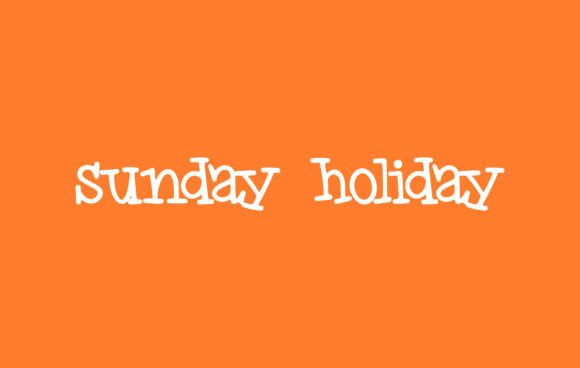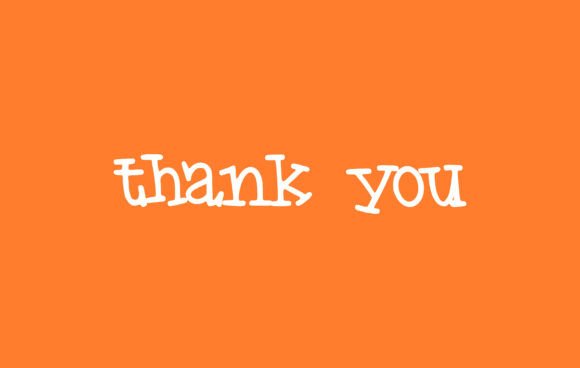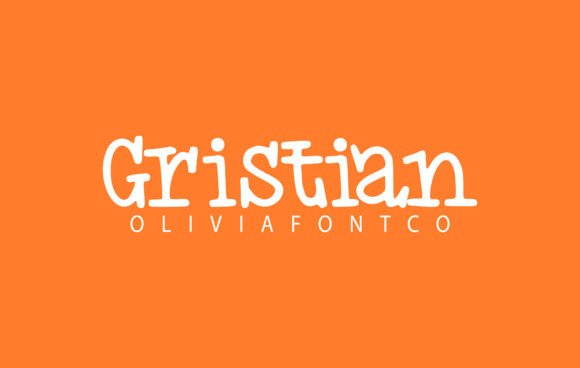
Cristian Font: The Ultimate Handwritten Font for Creative Designs
Are you tired of using the same old fonts for your designs? Look no further than Cristian Font, an authentic handwritten font with a romantic touch that’s sure to take your creative ideas to the next level. Expertly designed to be a true favorite among designers and crafters, Cristian Font is the perfect addition to any project that requires a personal and elegant touch.
What Makes Cristian Font So Special?
Cristian Font is more than just a font – it’s an experience. With its unique handwritten style, this font exudes a sense of warmth and personality that’s hard to find in digital fonts. The romantic touch that Cristian Font brings to the table is perfect for designs that require a touch of elegance and sophistication. Whether you’re working on a wedding invitation, a branding project, or a social media post, Cristian Font is sure to make your design stand out.
Legibility and Versatility
One of the standout features of Cristian Font is its exceptional legibility. This font is designed to be easy to read, making it perfect for use as both title and body text. The clean lines and flowing curves of Cristian Font ensure that your text is clear and concise, even at smaller sizes. This versatility makes Cristian Font an excellent choice for a wide range of design applications, from magazine headlines to social media posts.
Cristian Font is an incredibly versatile font that can be used for a wide range of design projects. Here are just a few ideas to get you started:
- Magazine headlines: Add a touch of elegance to your magazine with Cristian Font.
- Social media: Stand out on social media with Cristian Font’s unique and romantic style.
- Branding: Use Cristian Font to add a personal touch to your brand’s identity.
- Wedding invitations: Make your wedding invitations truly special with Cristian Font.
- Cards: Add a touch of warmth and personality to your greeting cards with Cristian Font.
Why Designers and Crafters Love Cristian Font
So why do designers and crafters love Cristian Font so much? Here are just a few reasons:
- Unique style: Cristian Font’s handwritten style sets it apart from other fonts.
- Easy to read: Cristian Font’s exceptional legibility makes it perfect for use as both title and body text.
- Versatile: Cristian Font can be used for a wide range of design projects.
- Elegant: Cristian Font’s romantic touch adds a touch of elegance to any design.
In conclusion, Cristian Font is an exceptional handwritten font that’s perfect for designers and crafters looking to add a personal touch to their designs. With its unique style, exceptional legibility, and versatility, Cristian Font is sure to become a favorite among designers. Whether you’re working on a wedding invitation, a branding project, or a social media post, Cristian Font is the perfect choice. So why wait? Download Cristian Font today and take your creative ideas to the next level!
Key Features of Cristian Font
- Authentic handwritten font
- Romantic touch
- Exceptional legibility
- Versatile
- Perfect for title and body text
Cristian Font is a must-have for any designer or crafter looking to add a touch of elegance and sophistication to their designs. With its unique style and exceptional legibility, Cristian Font is sure to be a favorite among designers for years to come.